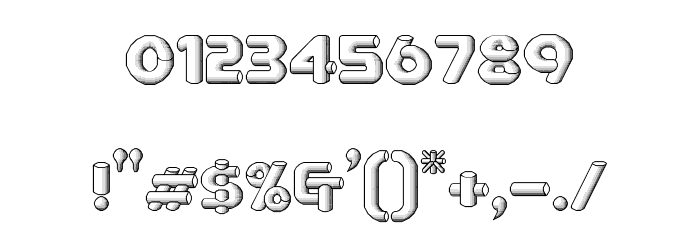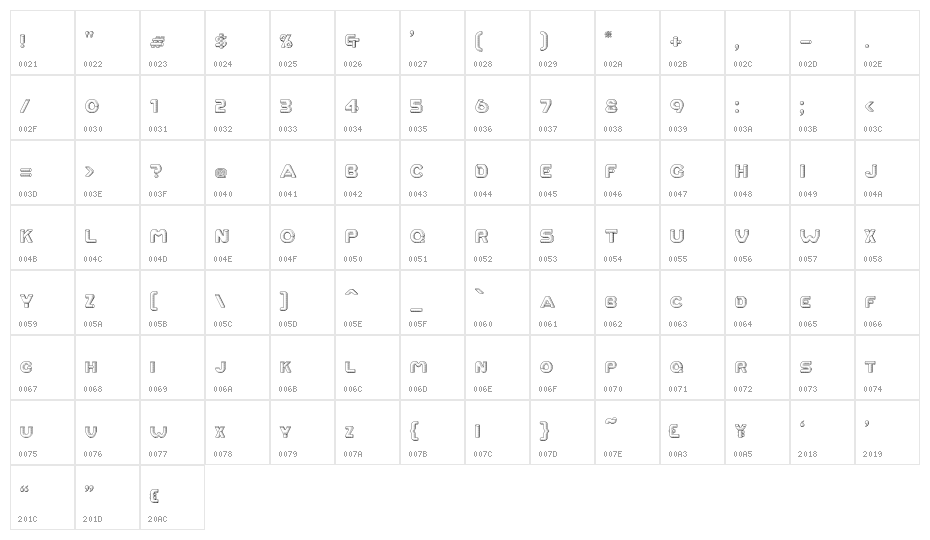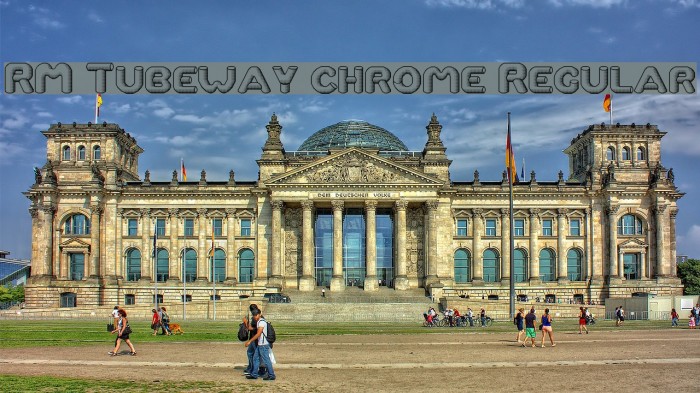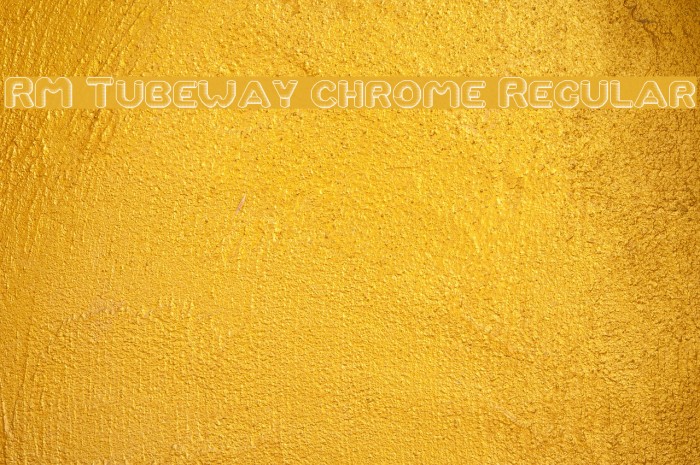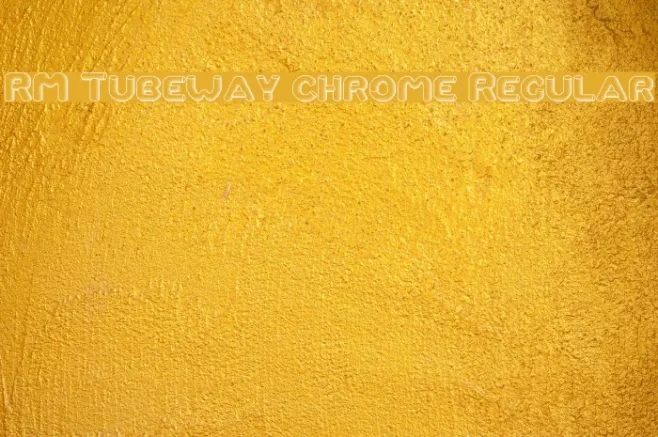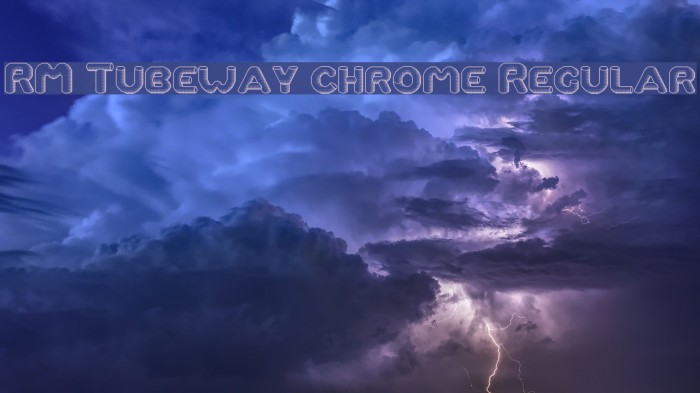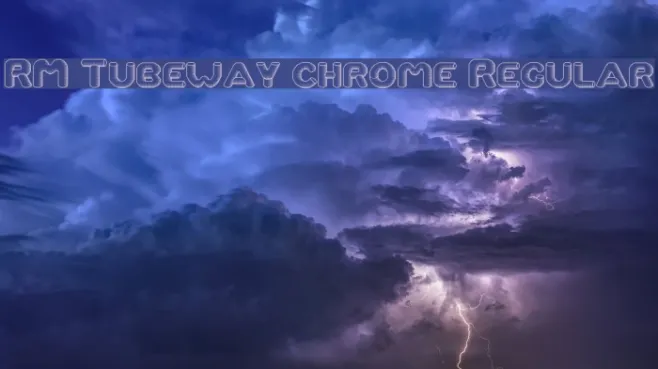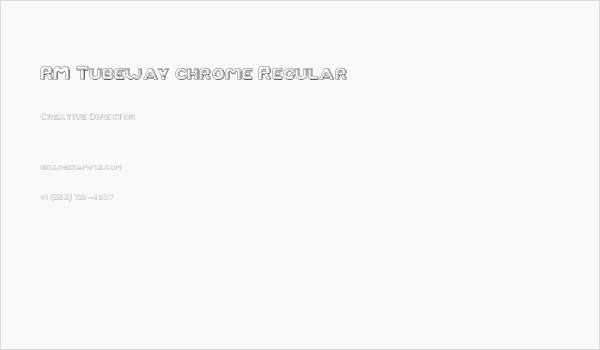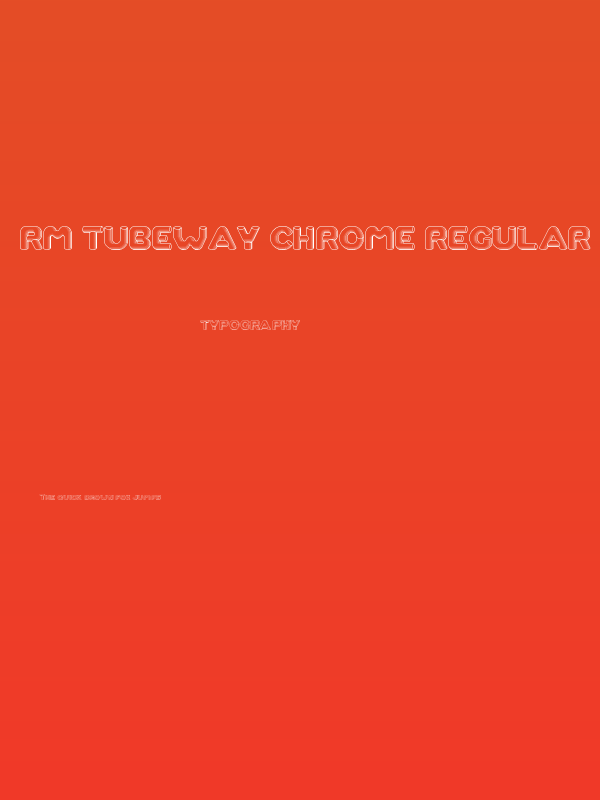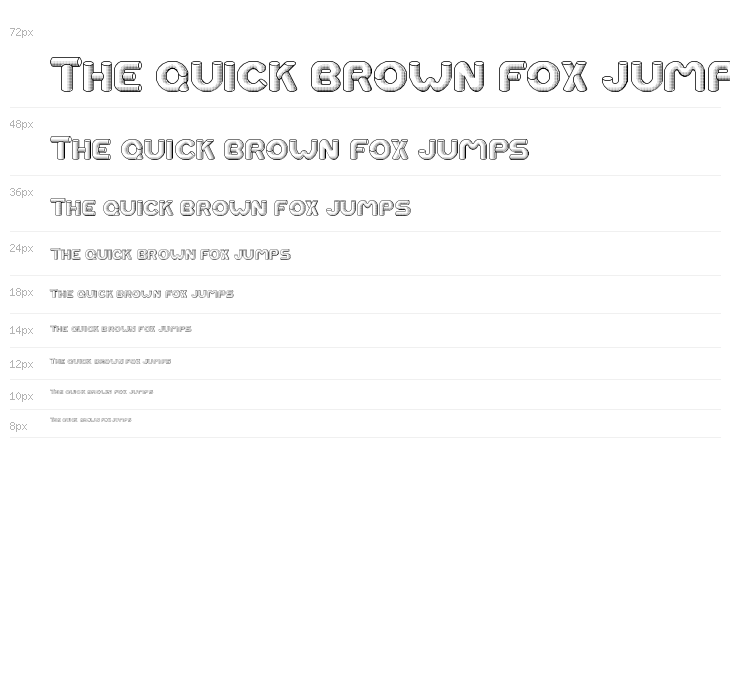
RM Tubeway chrome Regular Font
RM Tubeway chrome Regular Description
This font features a bold, futuristic design with a three-dimensional chrome effect. The characters are rounded with a metallic sheen, giving them a sleek and modern appearance. The uppercase letters are uniform in height, while the lowercase letters maintain a consistent style. The numbers and special characters follow the same aesthetic, ensuring a cohesive look across all glyphs. The font's unique style makes it stand out, with its reflective surfaces and smooth curves, ideal for projects that require a modern and eye-catching typeface.